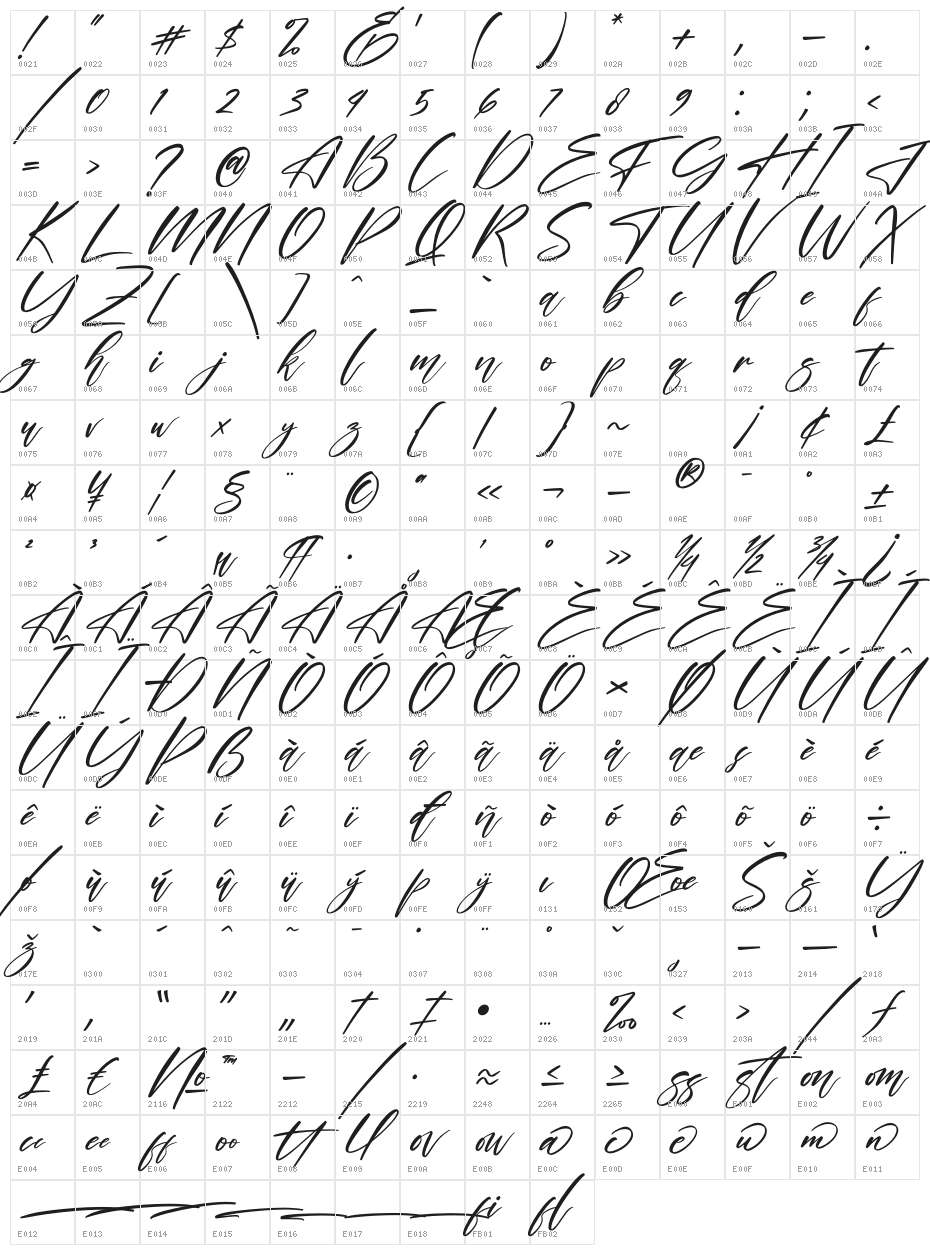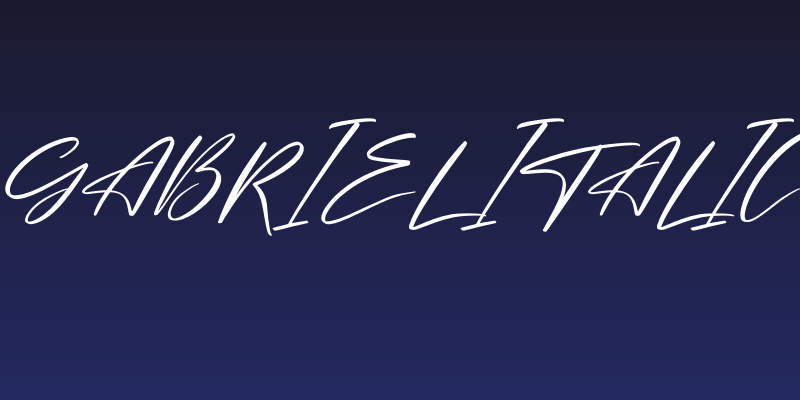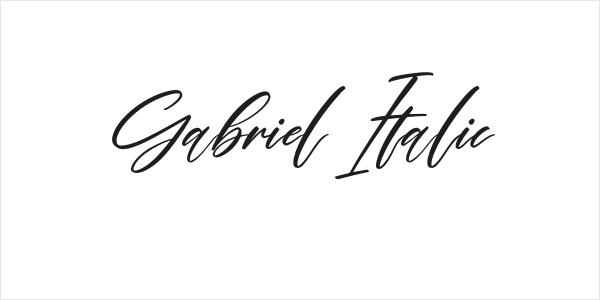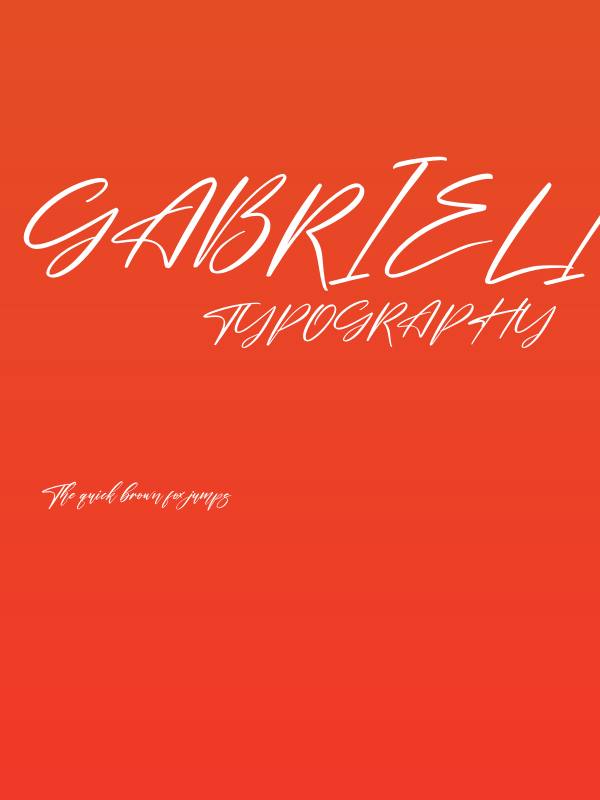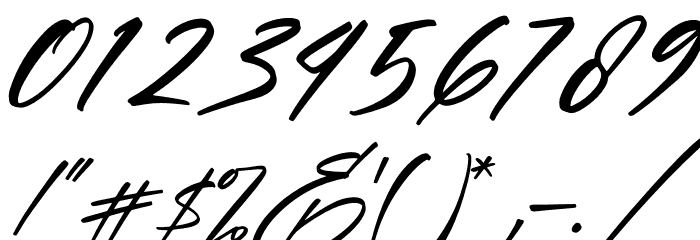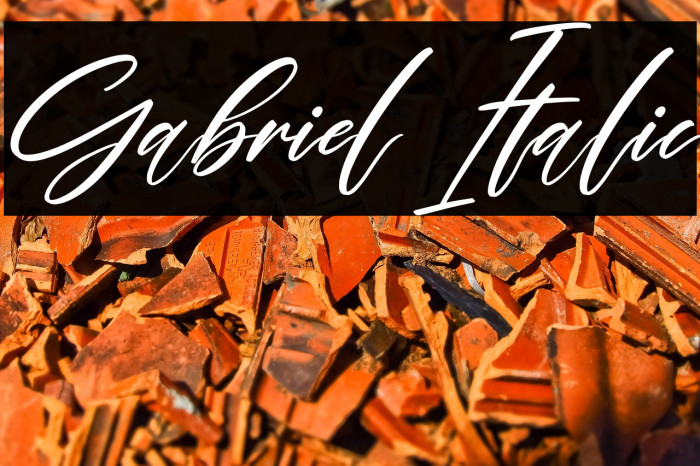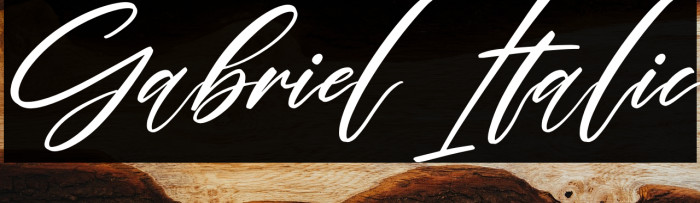
Gabriel Italic Font
Gabriel Italic Description
This font features a dynamic and fluid script style, characterized by its elegant, flowing strokes and a sense of movement. The letters are interconnected, creating a seamless and cursive appearance that mimics natural handwriting. The uppercase letters are slightly more structured, while the lowercase letters exhibit a more pronounced slant, enhancing the overall italicized effect. The numerals and special characters maintain the same fluidity, ensuring consistency across all glyphs. This font exudes a sense of sophistication and creativity, making it ideal for projects that require a personal touch.
| Overall Style | Elegant, Artistic |
| Use Case | Logos, Invitations, Personal Branding |
| Proposed Projects | Ideal for wedding invitations, personal branding, greeting cards, and artistic projects. |